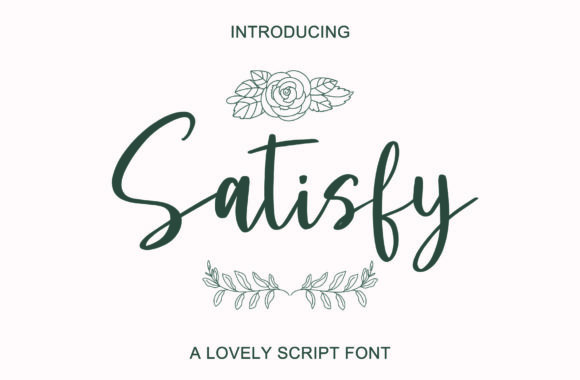
Introducing Satisfy Font - The Epitome of Elegance and Sophistication for Your Creative Expressions
Embark on a typographic journey with Satisfy Font, a script font that exudes grace and refinement. This meticulously crafted font will add a touch of timeless elegance to your designs, making them stand out from the crowd. Step into the world of Satisfy Font and discover the endless possibilities it holds for your creative projects.
With its delicate curves and flowing lines, Satisfy Font is the perfect choice for wedding invitations, thank you cards, and other special occasions. Its undeniable charm will elevate your designs, leaving a lasting impression on your recipients. Imagine your wedding invitations adorned with Satisfy Font, beautifully capturing the essence of romance and joy.
But Satisfy Font's versatility extends far beyond wedding-related projects. Its timeless appeal makes it suitable for a wide range of applications, including quotes, greeting cards, logos, business cards, and any design that calls for a personal touch. Let Satisfy Font breathe life into your designs, adding a touch of sophistication and elegance that will captivate your audience.
Created by the renowned Fontysia, Satisfy Font carries the legacy of excellence and creativity. Its every curve and stroke has been meticulously crafted to ensure that it not only looks beautiful but also conveys a message of elegance and refinement. Whether you're a seasoned designer or just starting out, Satisfy Font is the perfect tool to add a touch of magic to your creative projects.